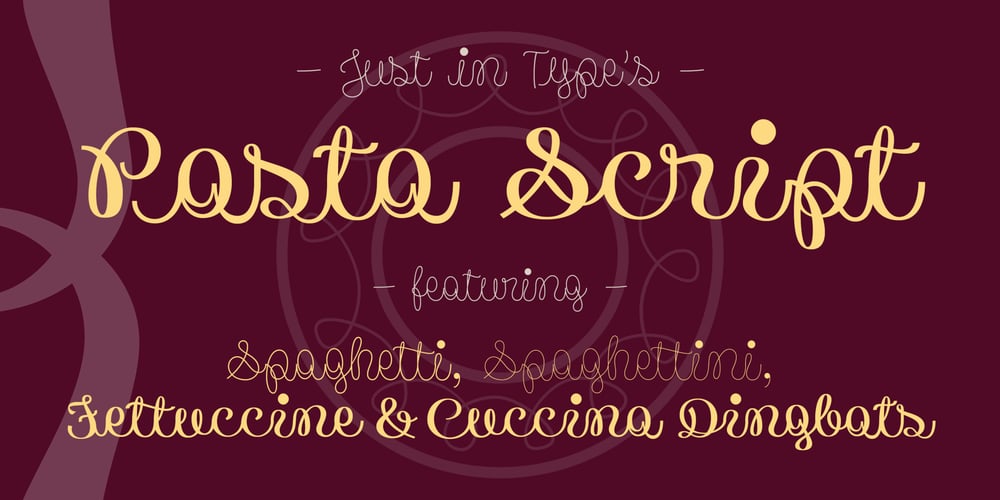
Pasta Script
Pasta Script font
Pasta Script Font Family was designed by Diego Maldonado and published by Just in Type. Pasta Script contains 4 styles and family package options. The Pasta Script Family is a delicious script typeface inspired by the Italian spaghetti movement. For display use on every kind of support, choose between Spaghetti or Spaghettini according to the size of your text, and if Fettucine is your choice – get pleased by it’s generous curves. The Cuccina Dingbats are free to use on any kind of work =)